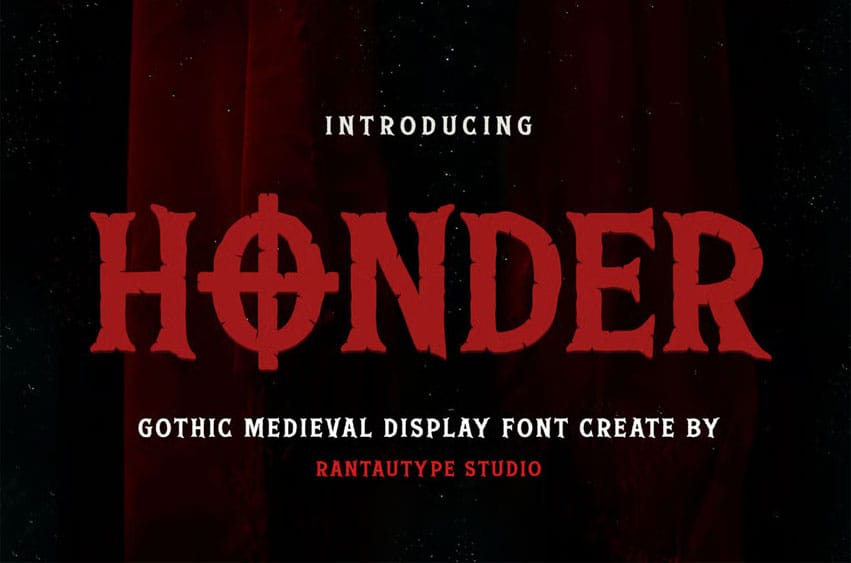
Honder Gothic Font is medieval display font made by Rantautype Studio.
Honder is a perfectly choice for any creative endeavor, creating, modern, lifestyle design such as logotype, title, cover, branding, invitations, wedding designs, display and magazine, social media posts, advertisements, printed quotes, product packaging, corporate brand, product designs, labels, photography, watermarks, special events and any other project with modern touch.